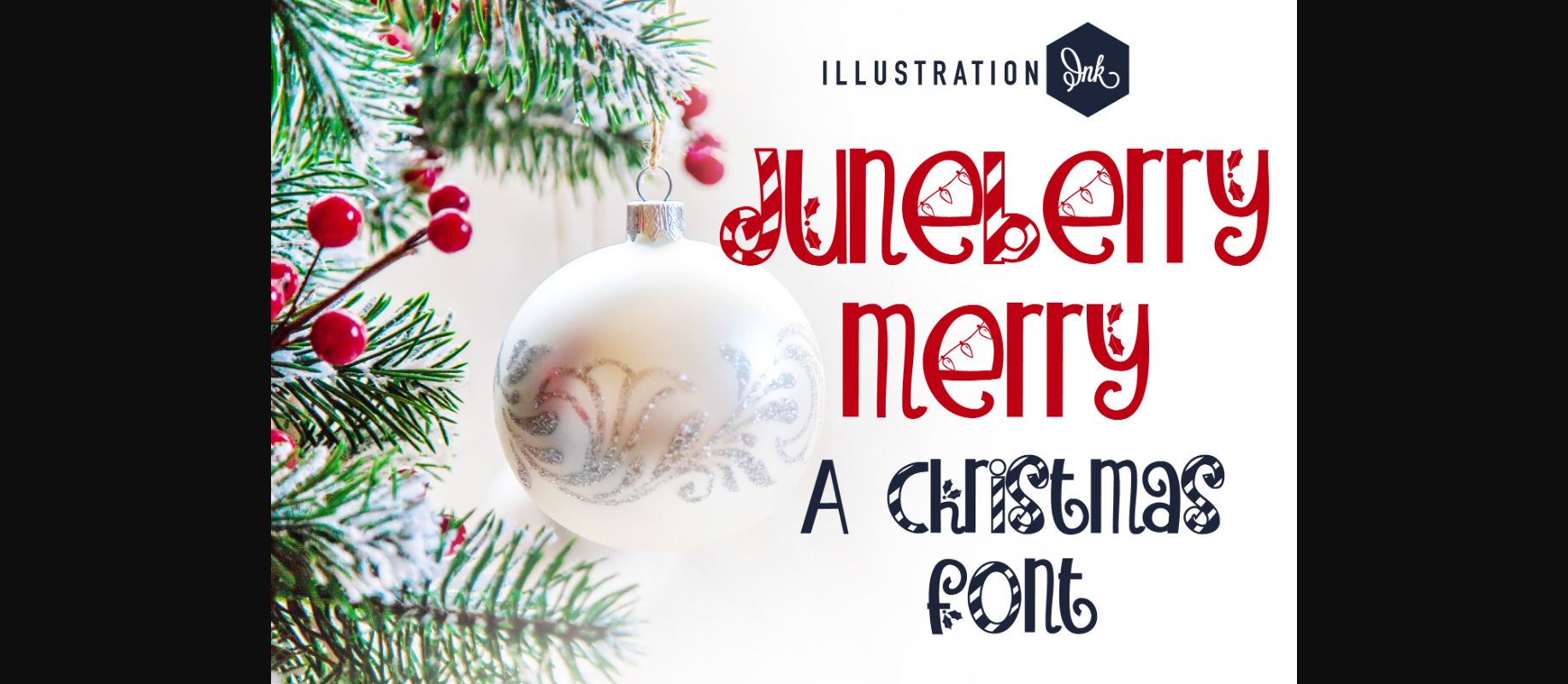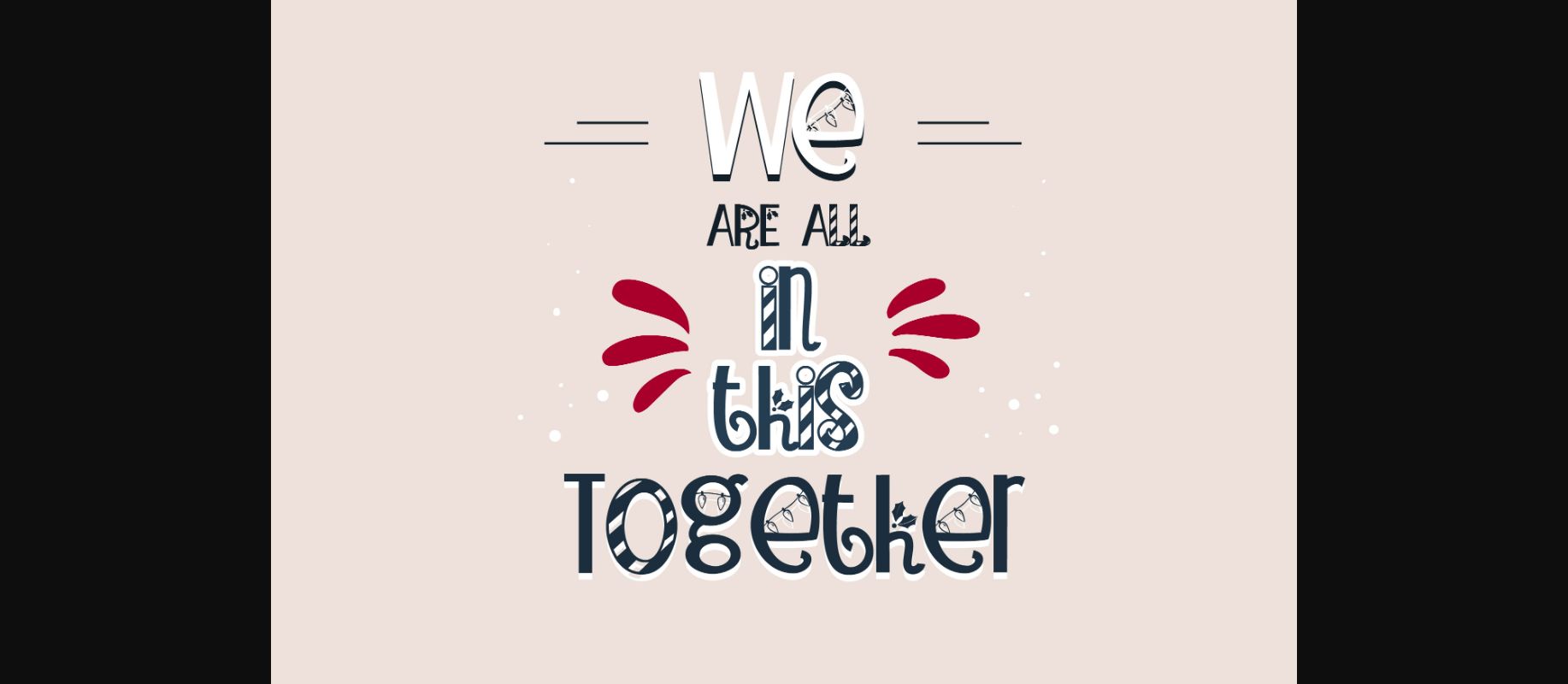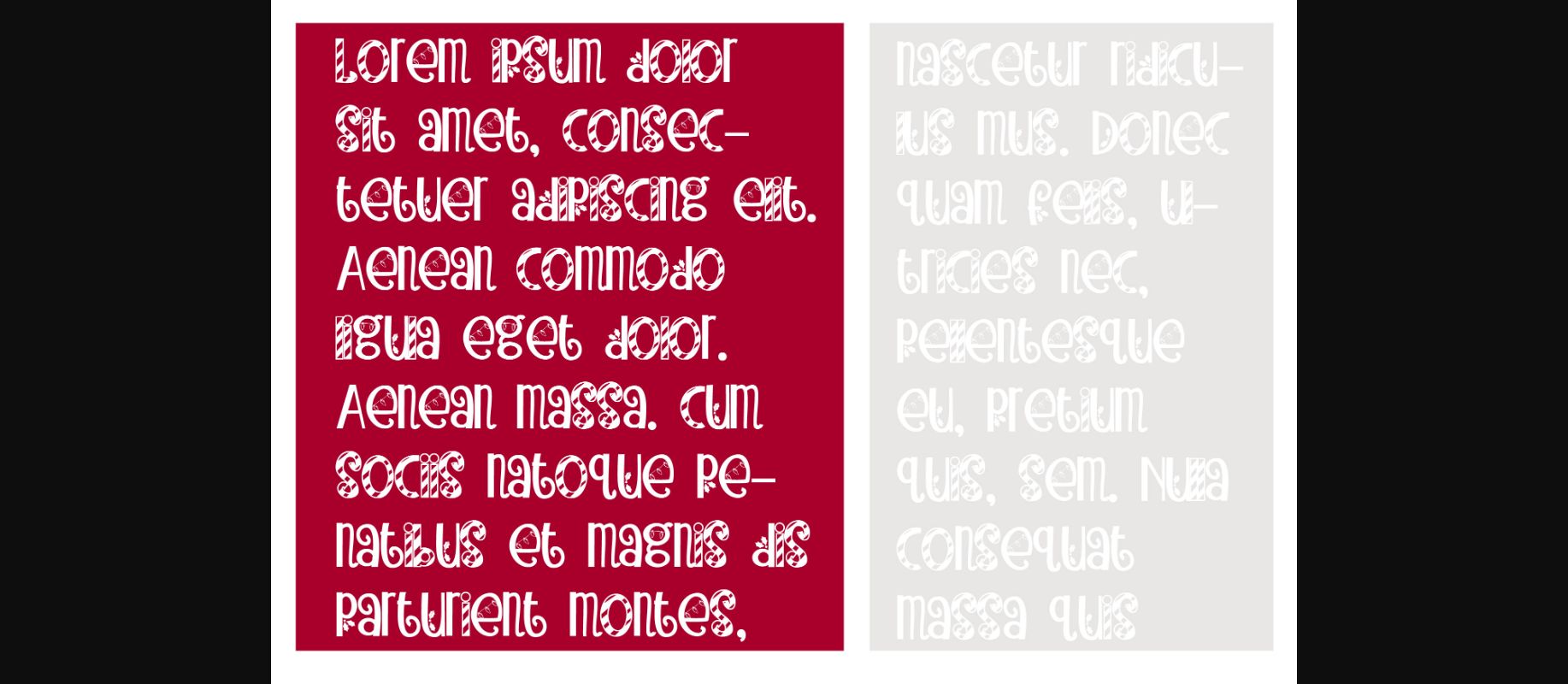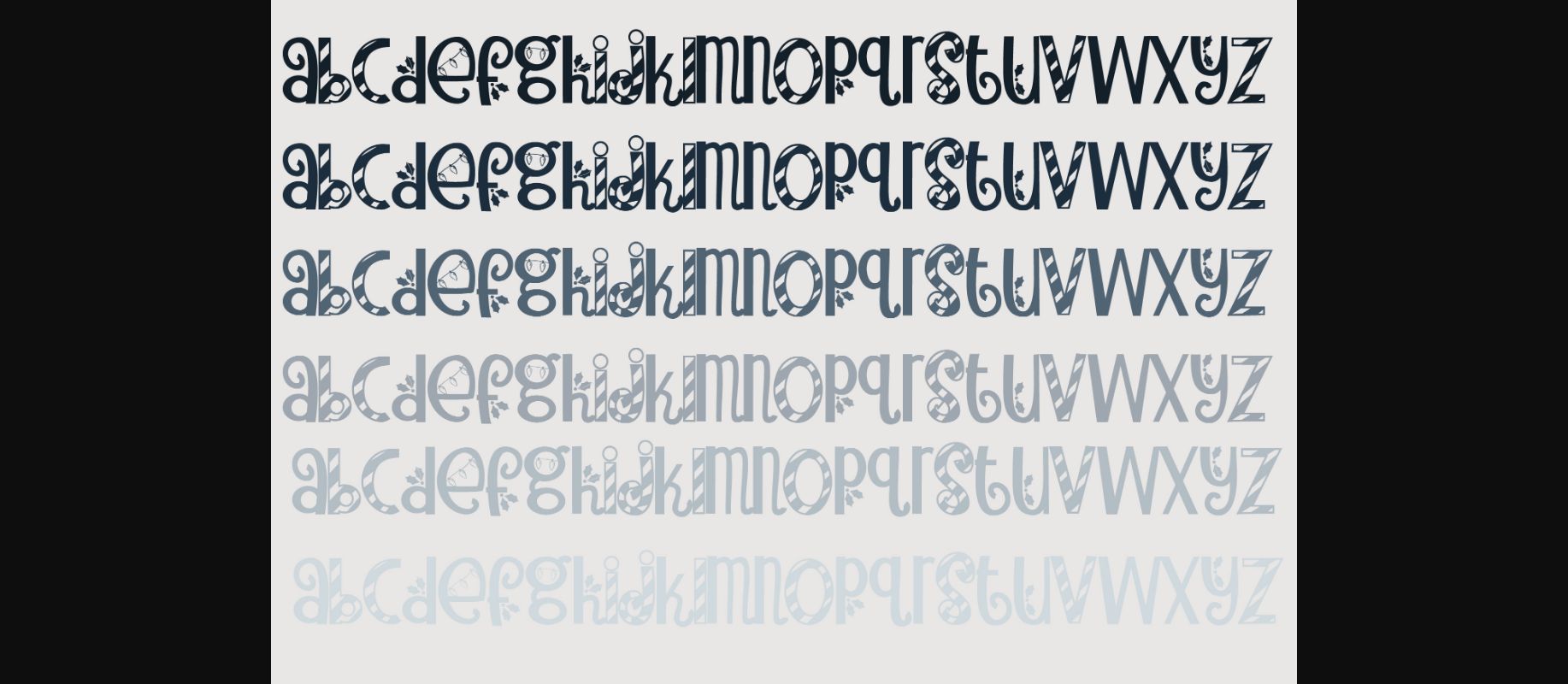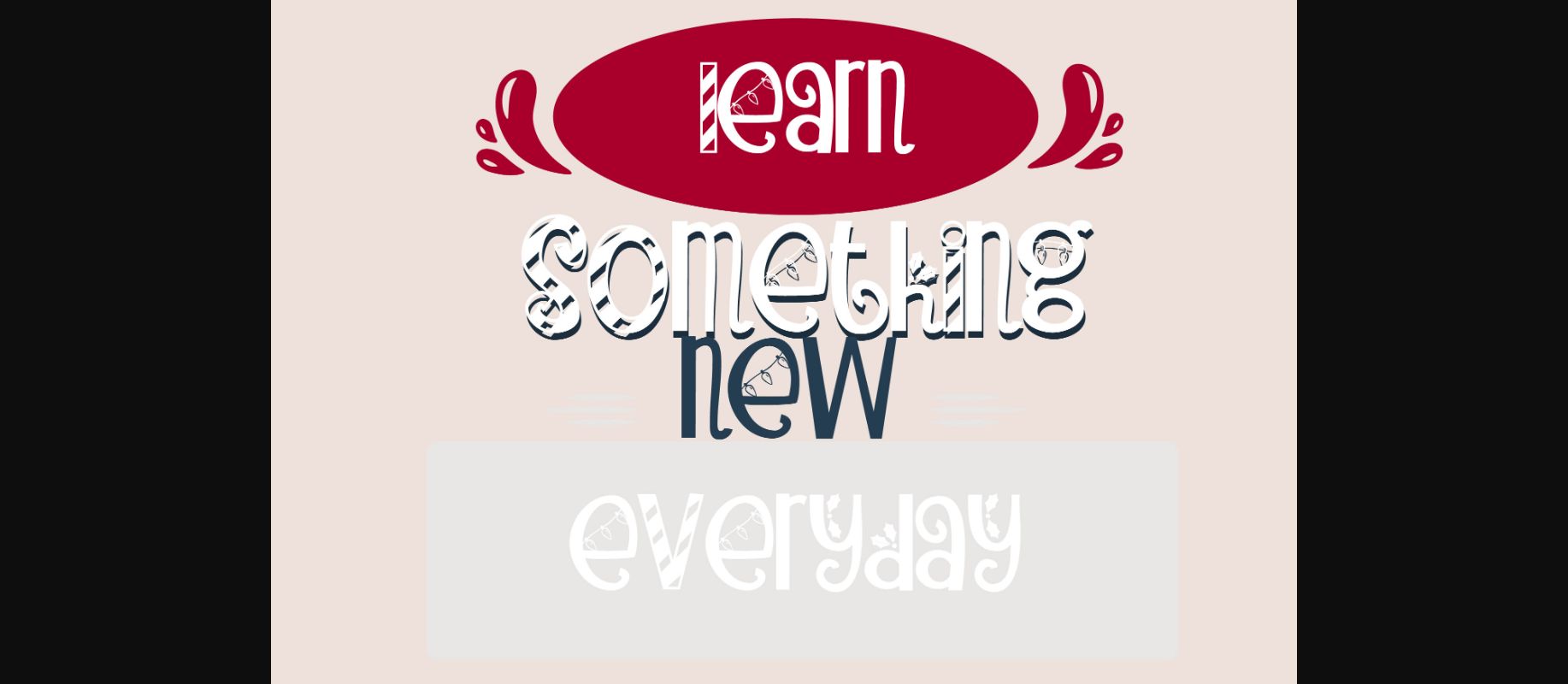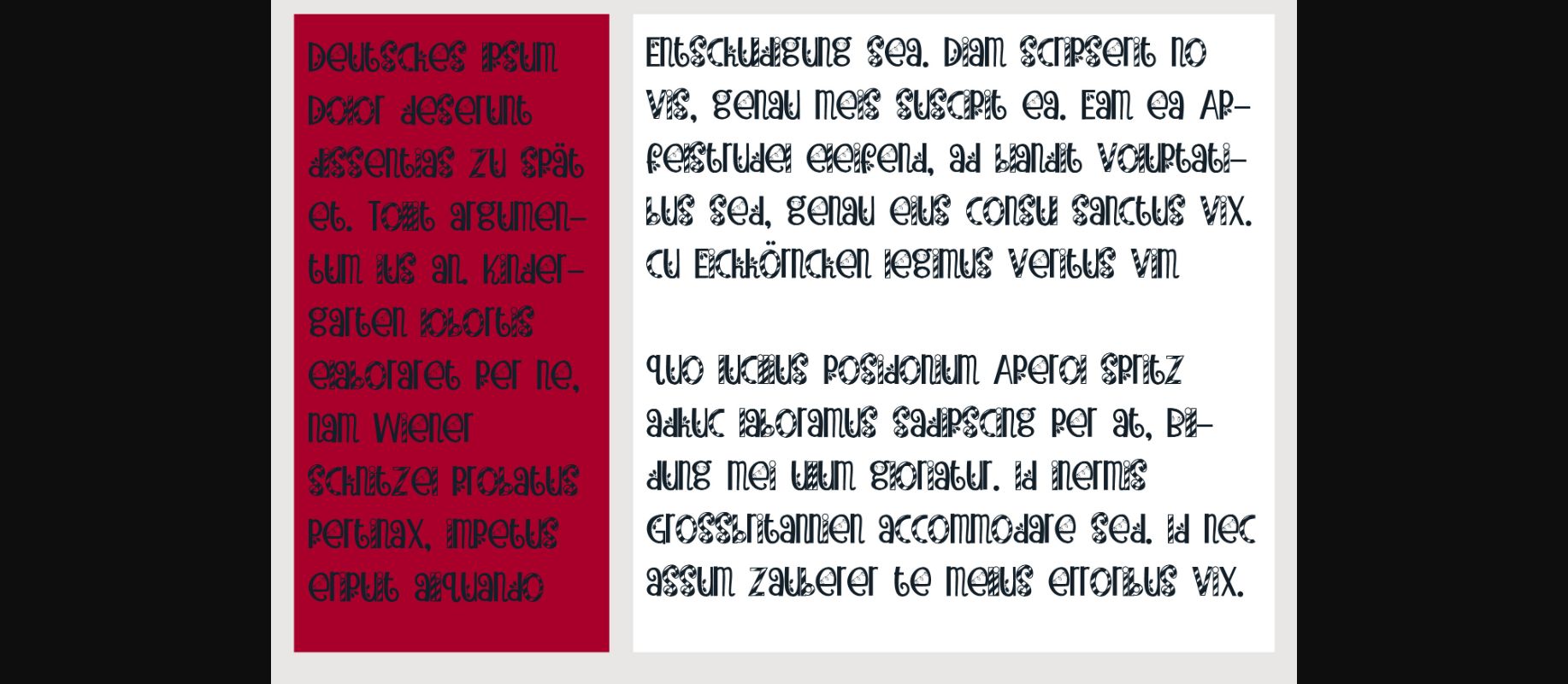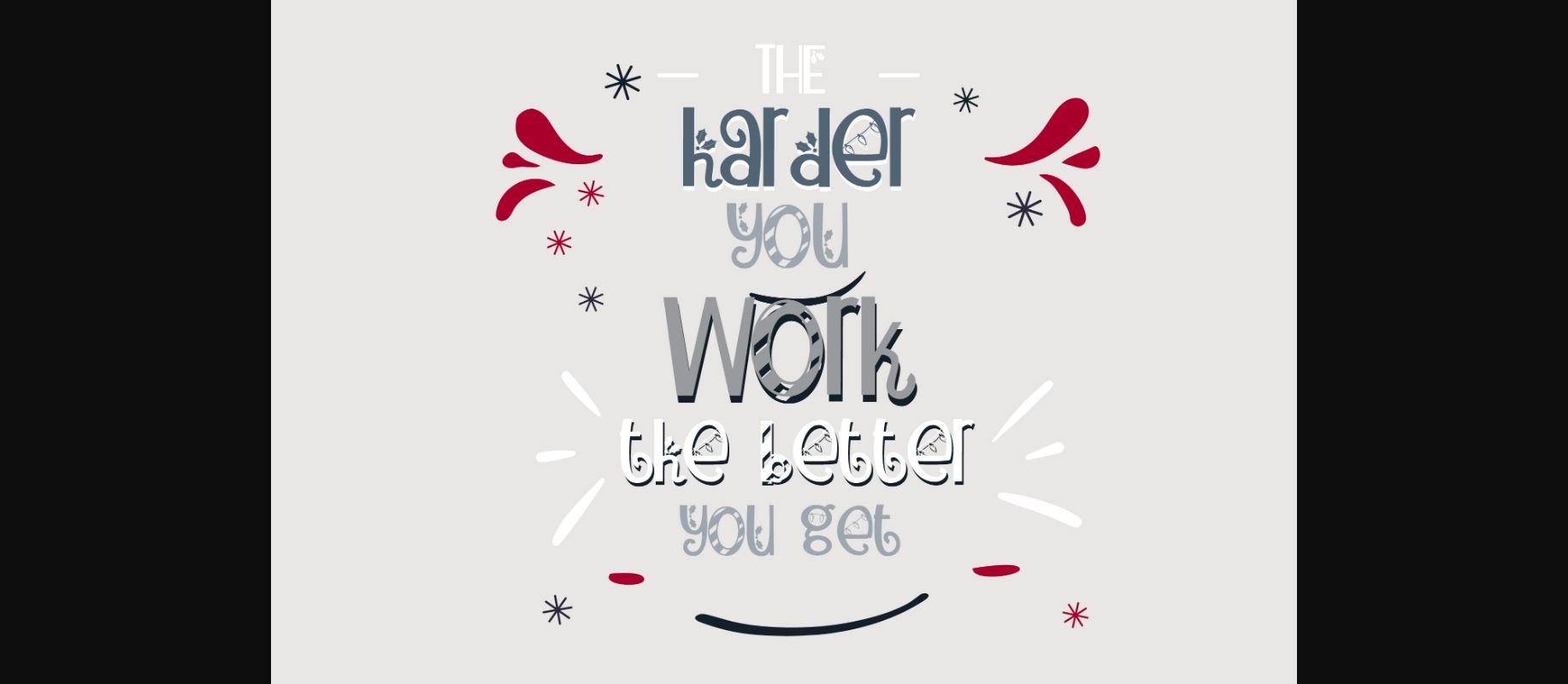
Juneberry Merry Font
About Juneberry Merry Font
This hand-crafted sans serif font features holly, Christmas lights and candy cane stripes.
A hand-crafted font is a font that is designed to look like it was written by hand. It is often used for invitations, greeting cards, and other items. Handwritten fonts can be either formal or informal, and they can be used for a variety of purposes.
Handwritten fonts can be a great way to add a casual touch to your designs. They can also be used to create a sense of nostalgia or whimsy. However, it is important to choose a handwritten font that is appropriate for the project you are working on. A formal handwritten font may not be appropriate for a casual invitation, while an informal handwritten font may not be appropriate for a corporate document.